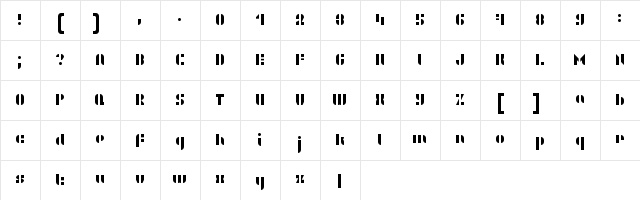
Complete WLM Stencils Swashy Regular glyph index. Displaying only characters natively supported by WLM Stencils Swashy Regular font.
WLM Stencils Swashy borrows the utilitarian aesthetic of stencil lettering, with its characteristic cutaways and no-frills construction lending an industrial edge.
Pro Tip: Use WLM Stencils Swashy at large sizes on packaging, posters, or apparel where the stencil cutaways read clearly. Avoid small sizes where those gaps become visual noise.